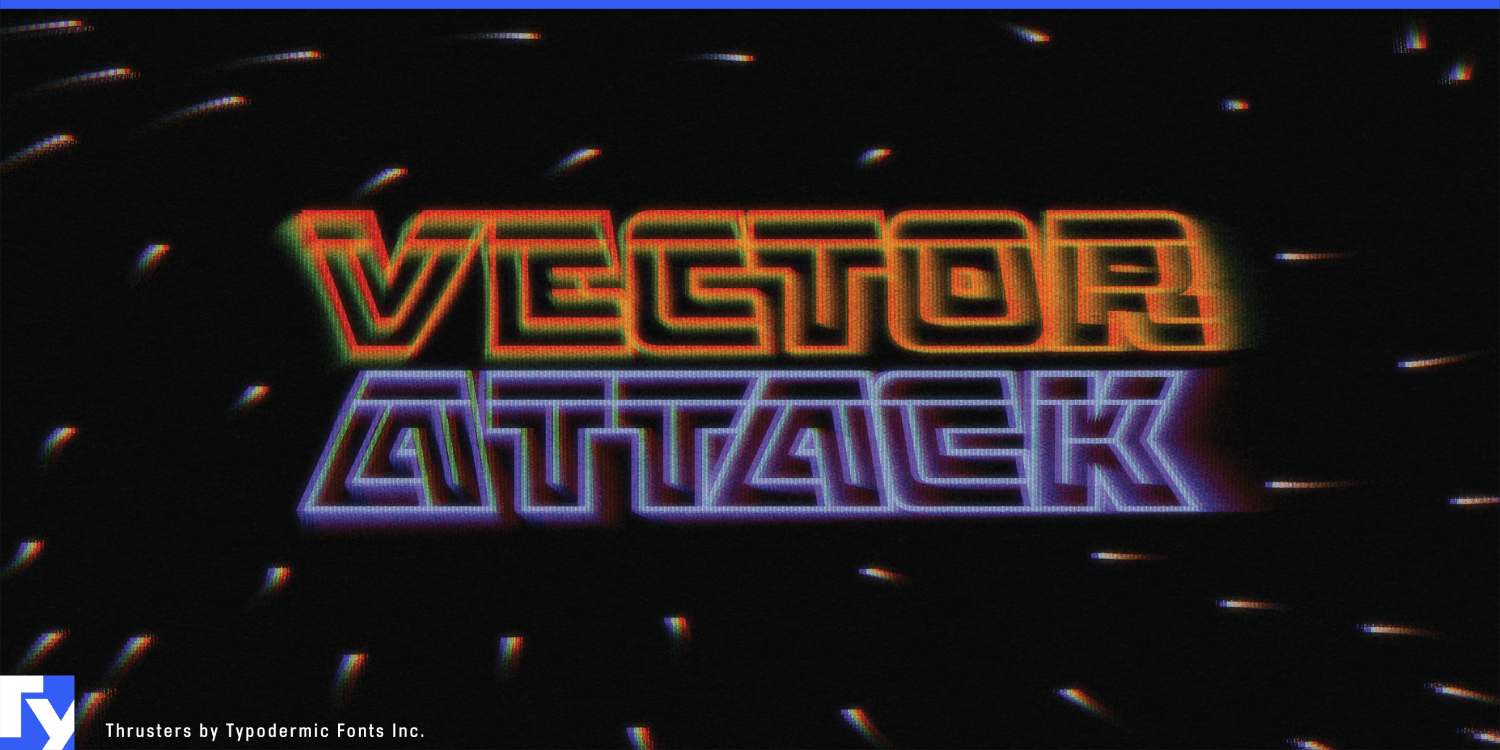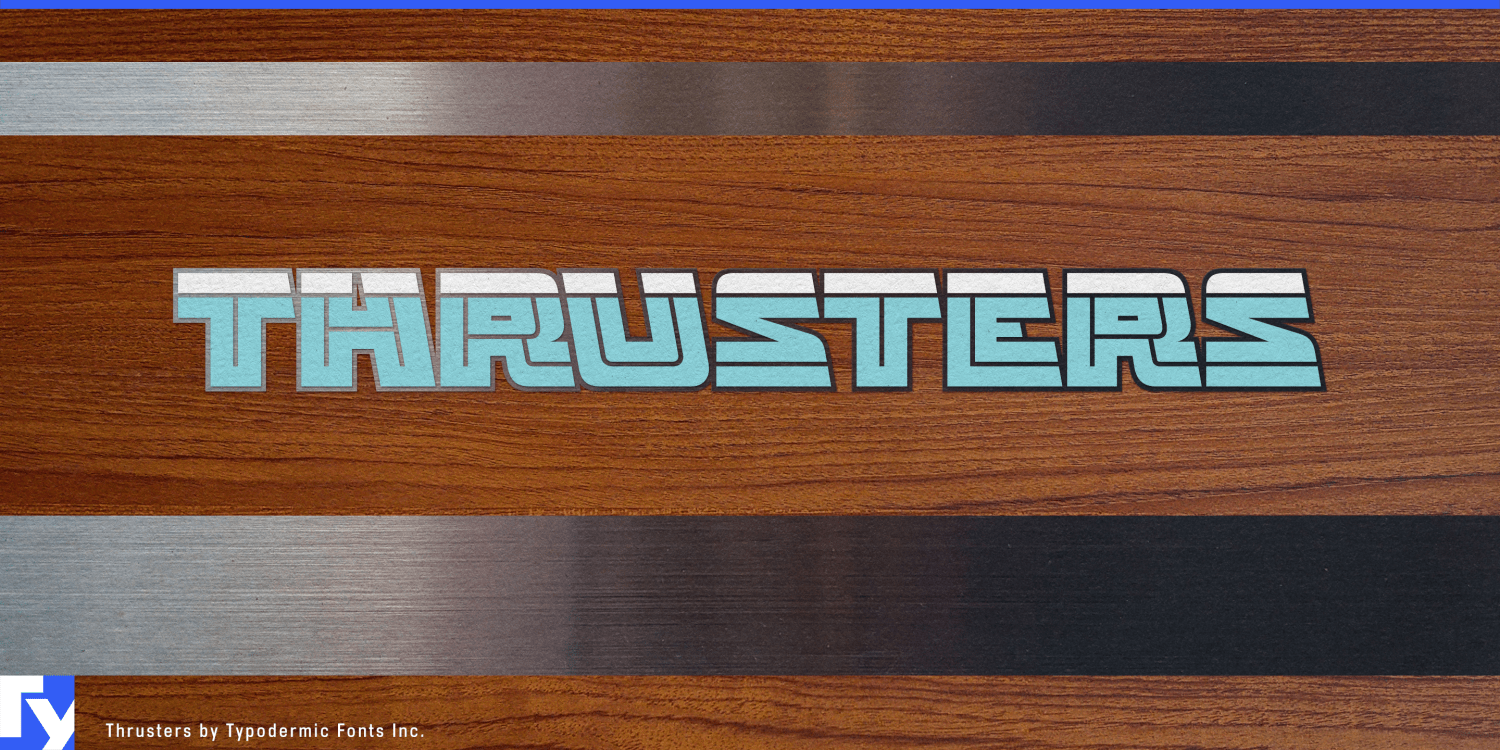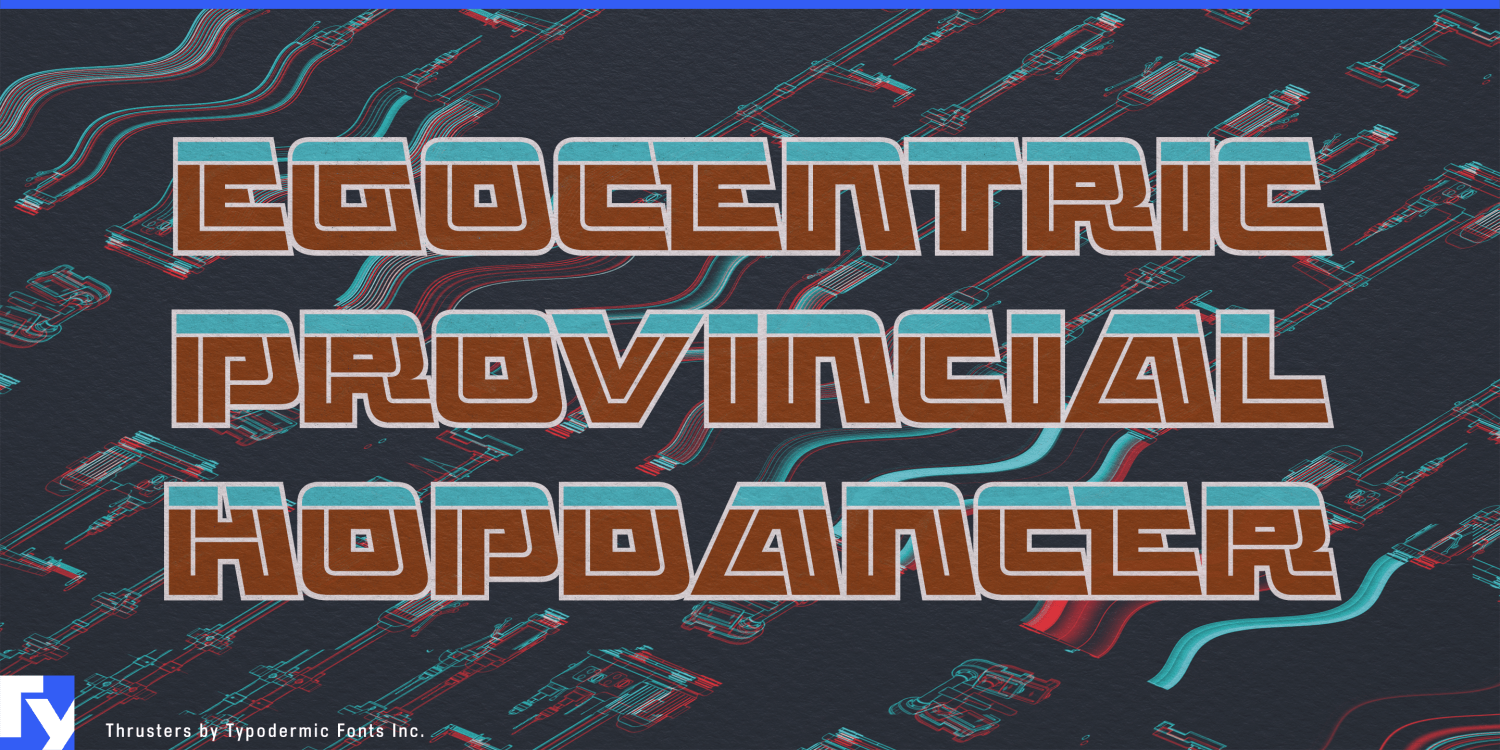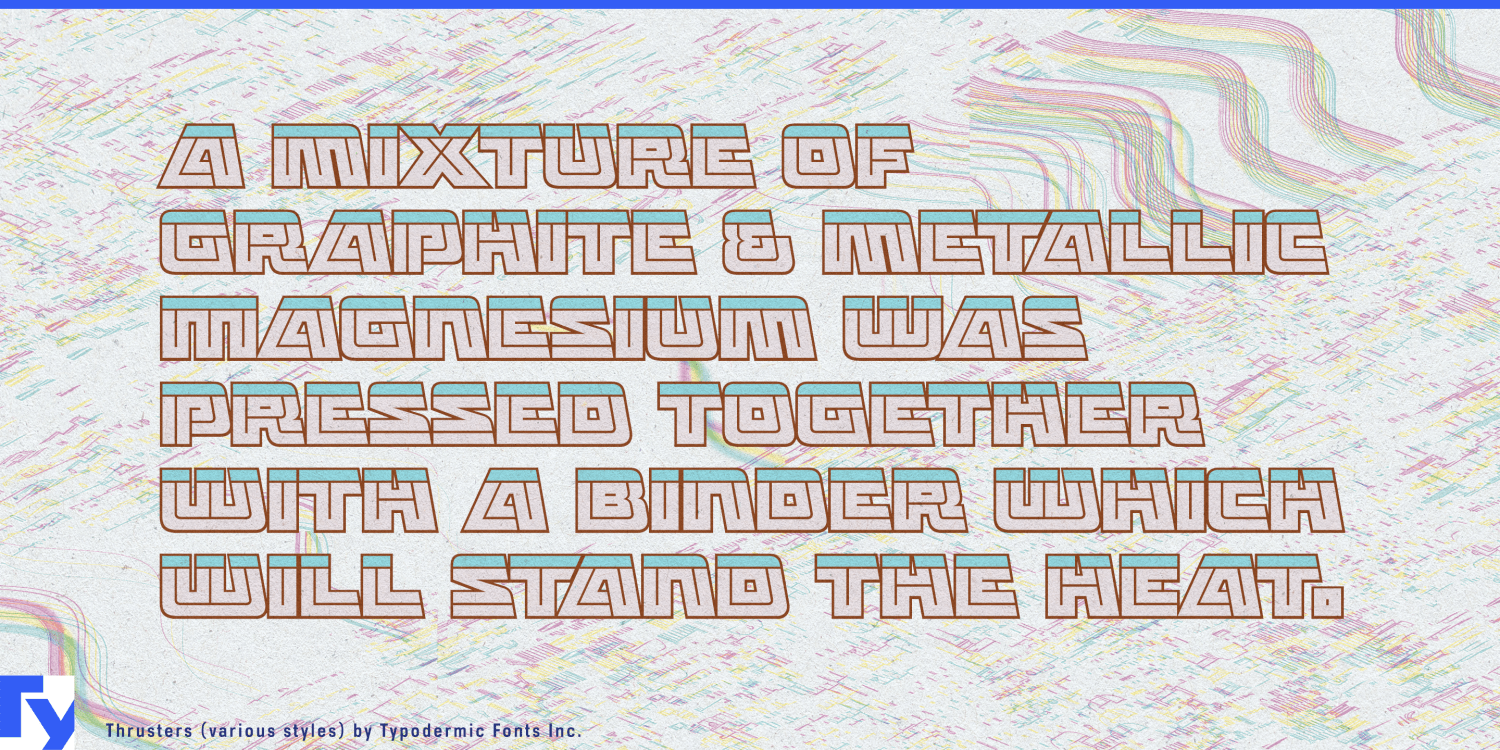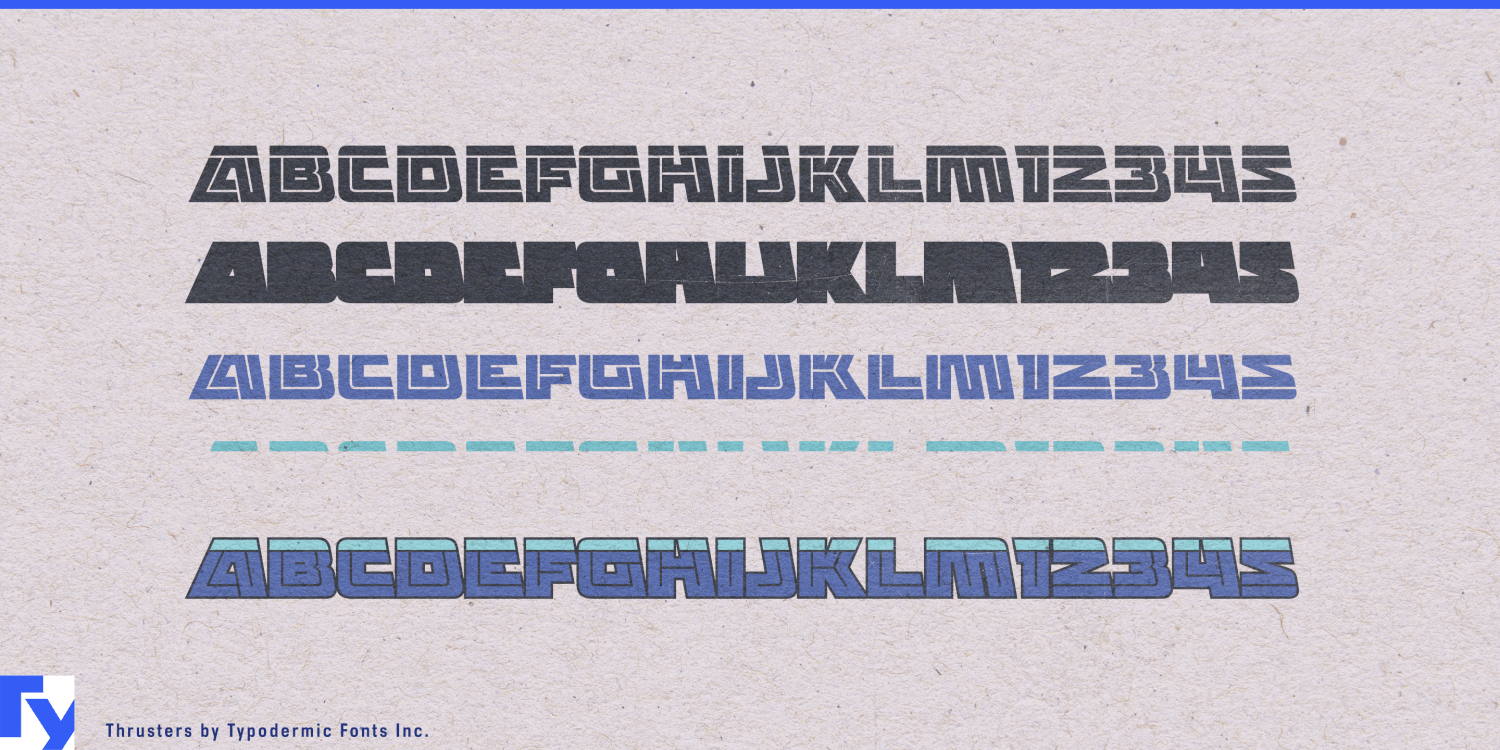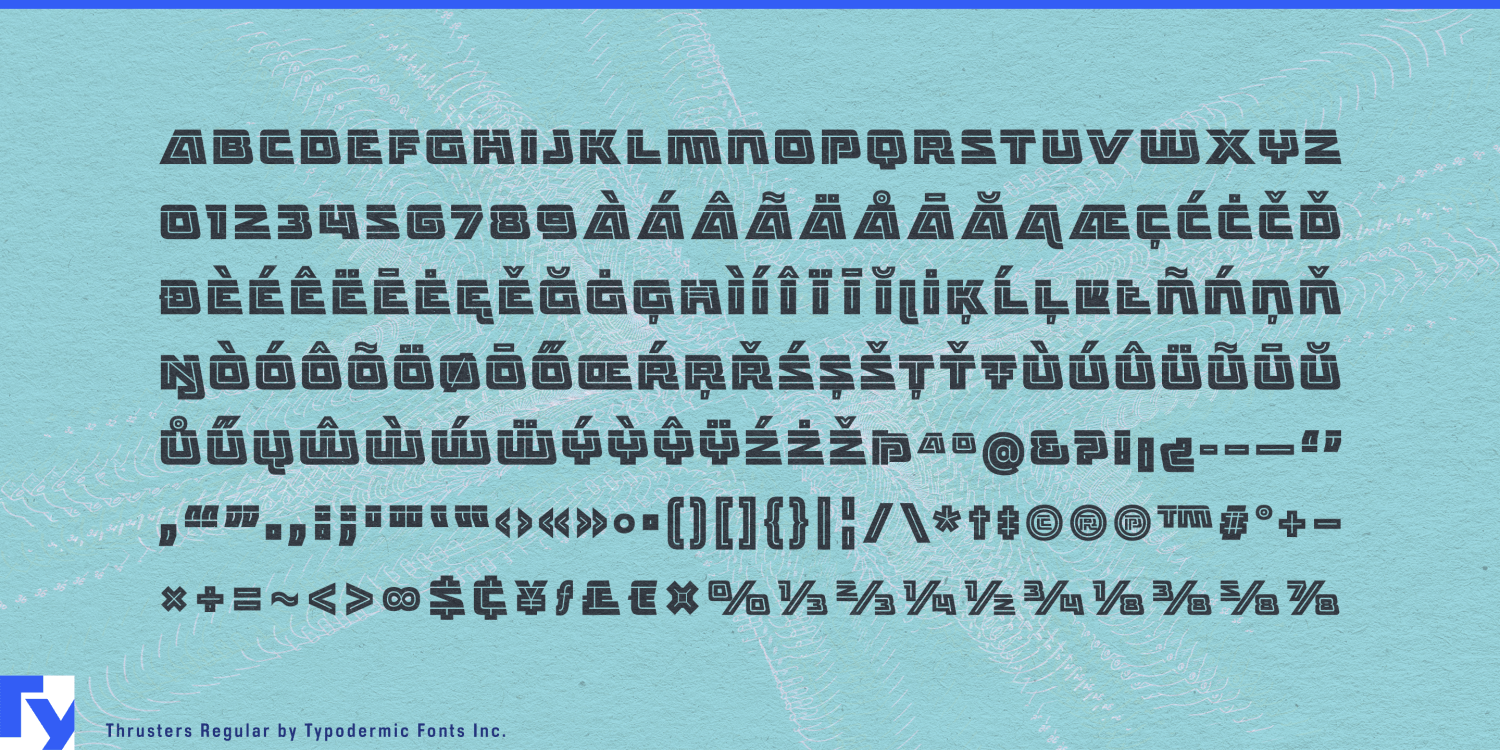
Thrusters
Font Family by Typodermic
Buy NowReady player one? It’s time to power up your designs with Thrusters—the typeface that’s more electrifying than a pocket full of quarters on arcade night! This is a warp zone straight back to the golden age of video game entertainment.
Inspired by the legendary Space Duel, Thrusters doesn’t just nod to retro gaming—it does a full victory dance. With its angular, twin-line design, this typeface is like discovering a secret level in the world of typography. It’s bold, it’s futuristic, and it’s ready to take your projects to the final boss stage. But wait, there’s a power-up! Thrusters comes in four interchangeable forms, each one a layer of typographic awesomeness. Stack them like the high scores on Galaga, and watch as your designs explode with multicolor magic. It’s like having a cheat code for creativity!
Thrusters speaks more languages than a UN interpreter at a gaming convention. From Afrikaans to Zulu, it’s ready to bring its pixelated charm to audiences worldwide. It’s like having a universal translator for style. So why settle for fonts that look like they came from the loading screen? Get Thrusters today and watch as your designs level up from mundane to arcade legend. It’s time to insert coin, press start, and show the world that in the game of design, you’ve got unlimited lives.